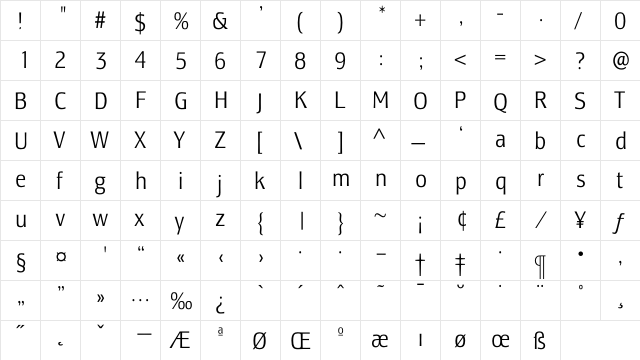
LesmoreLightCondensed Regular
Design Context for LesmoreLightCondensed Typeface
LesmoreLightCondensed offers clean, dependable letterforms without strong stylistic allegiance, making it a practical choice for designers who need flexibility. The delicate stroke weight brings airiness and refinement to layouts. Its narrow stance lets it pack a punch even in space-constrained designs.
Pro Tip: Use LesmoreLightCondensed in both headline and body roles to test its range before committing to a single application.